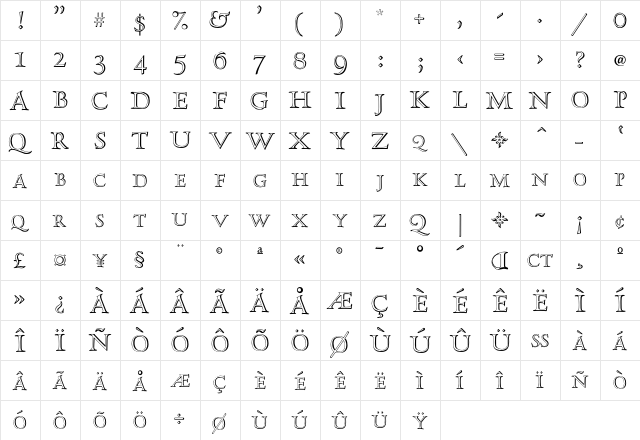
HadrianoStoneCut Regular
Design Context for HadrianoStoneCut Typeface
HadrianoStoneCut takes a measured approach to typography — its balanced proportions and neutral character make it a reliable workhorse for both digital and print work.